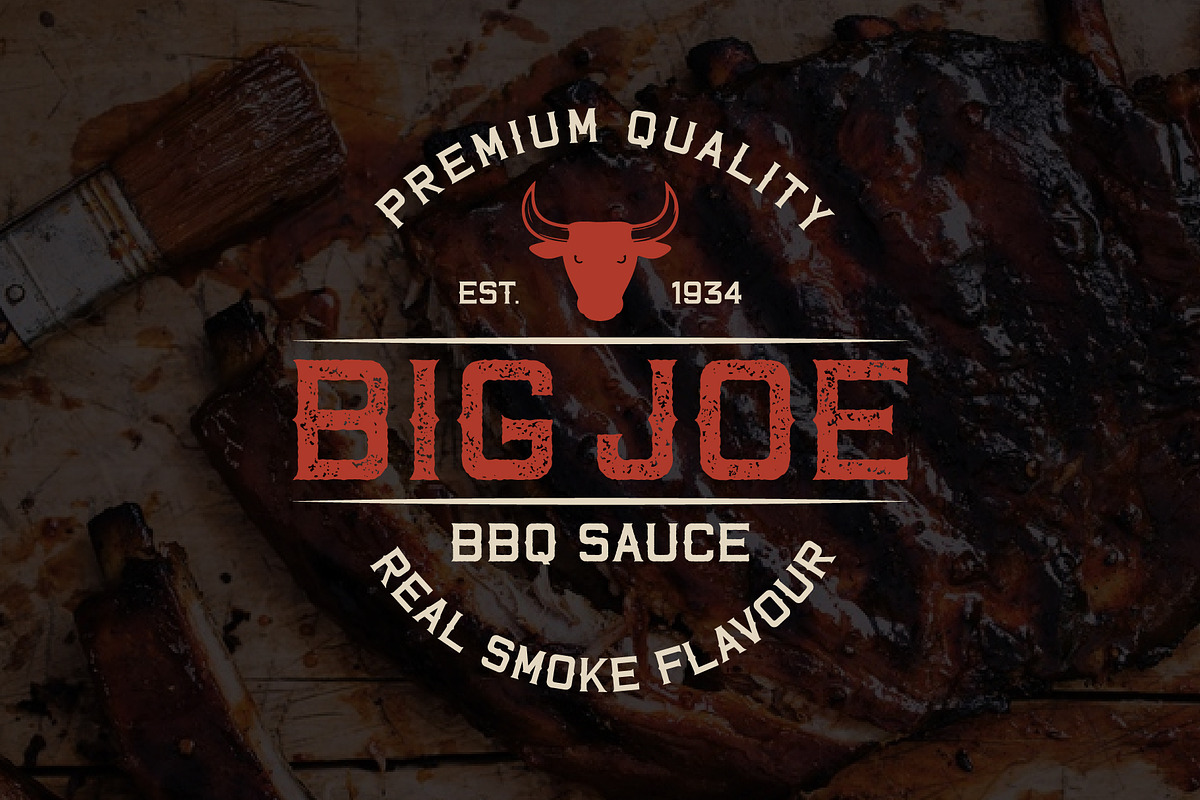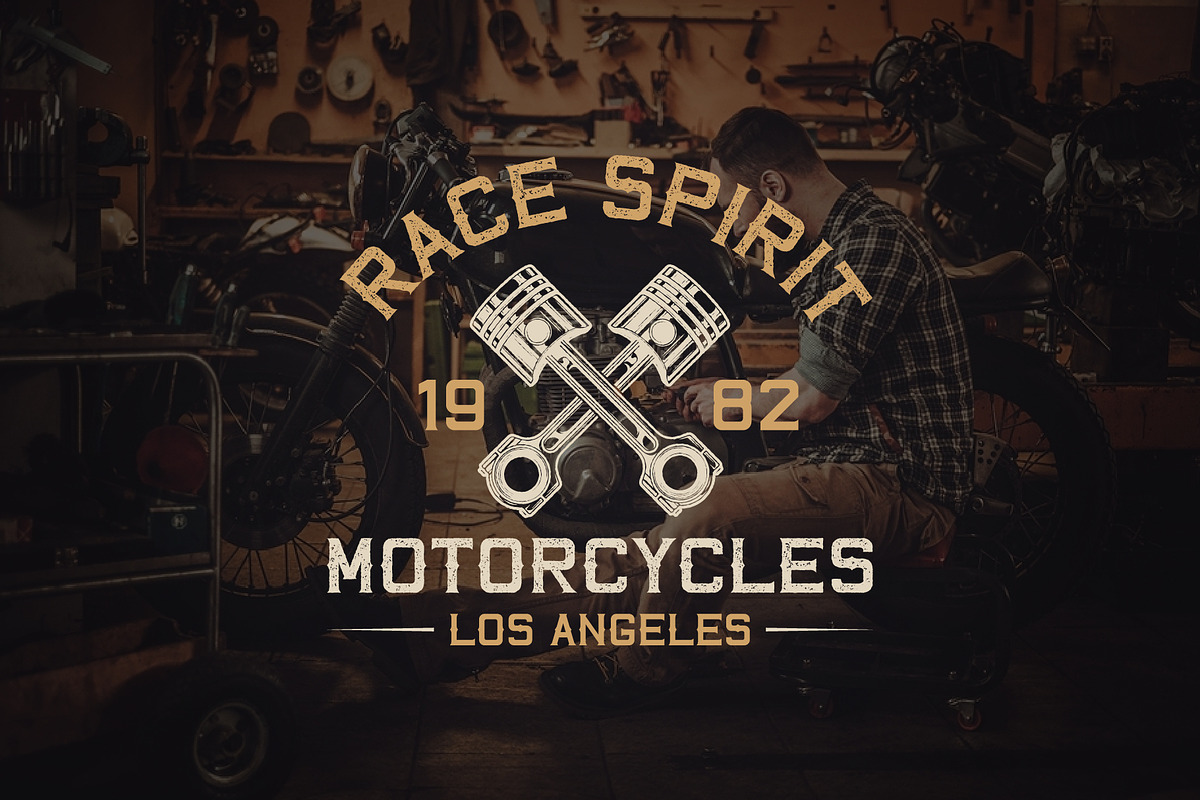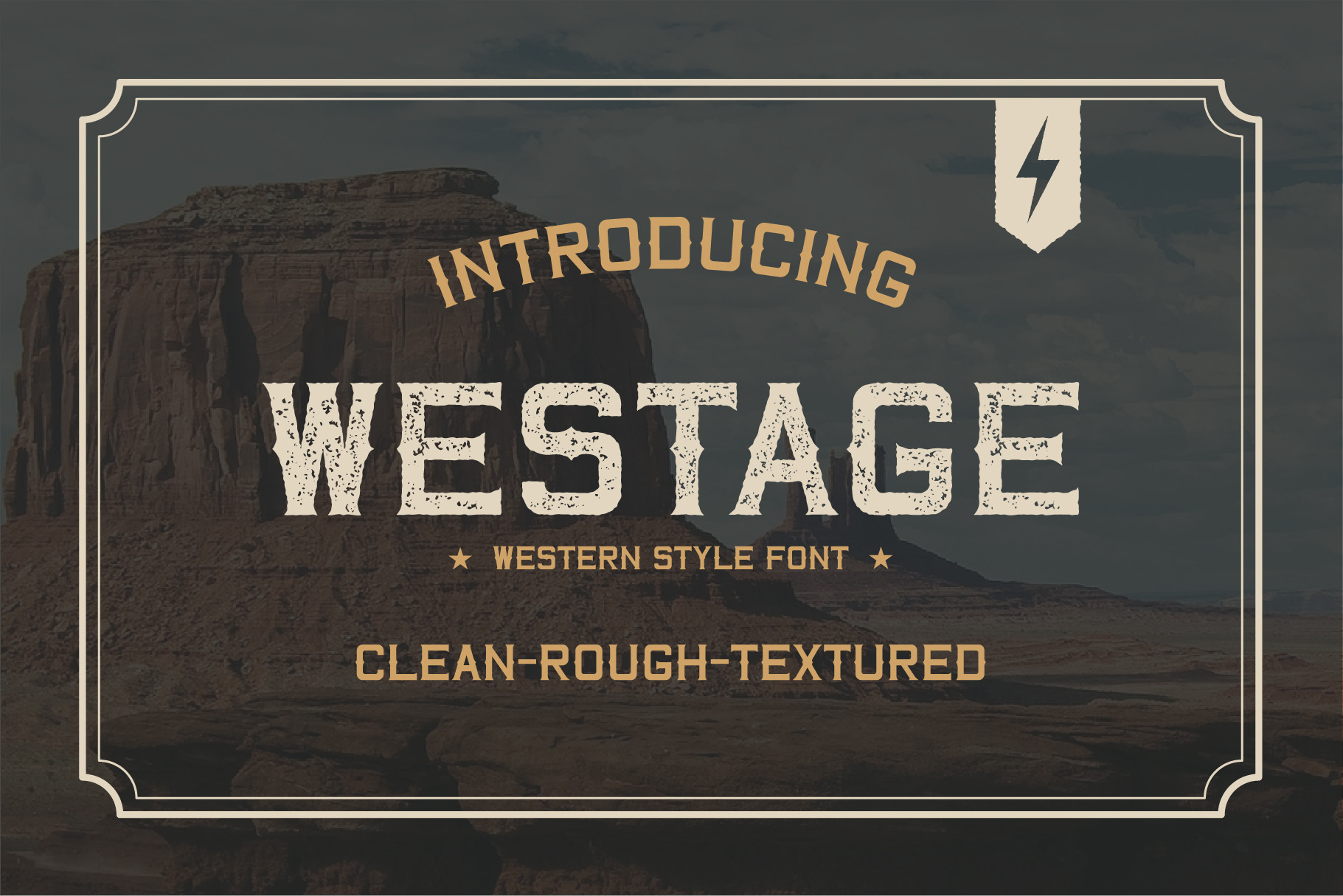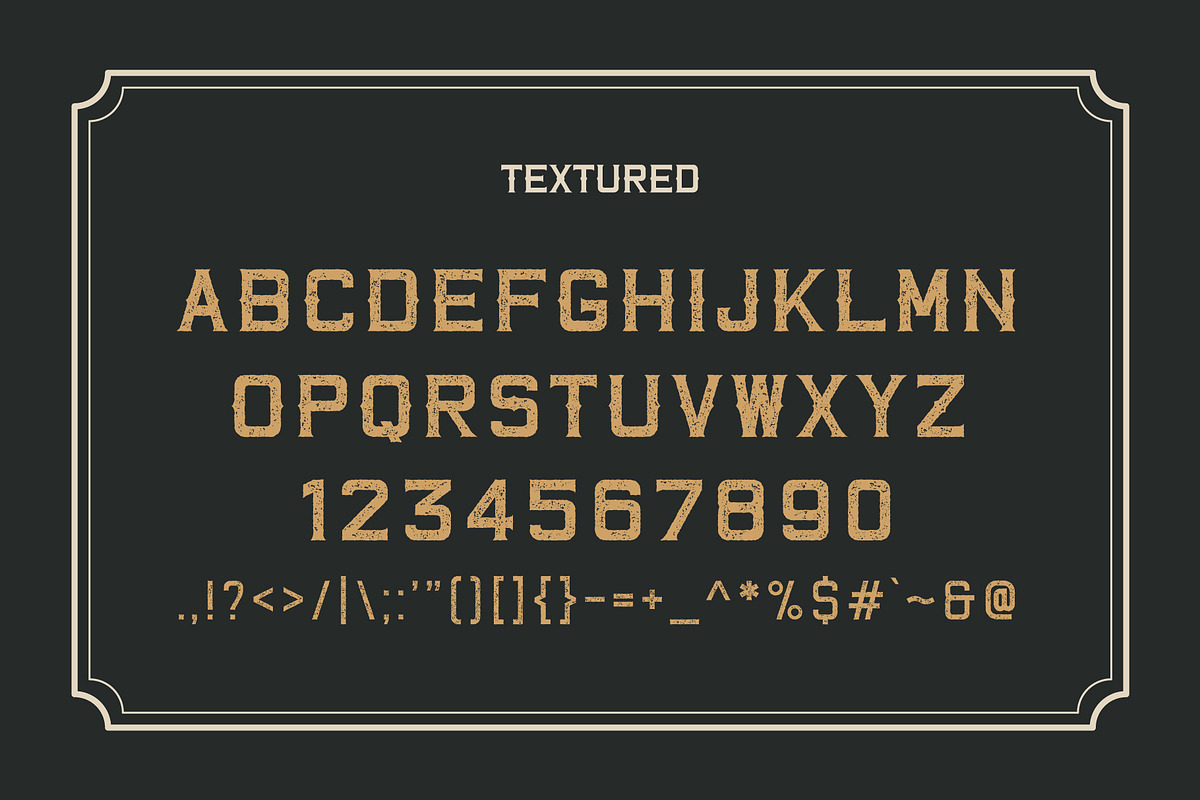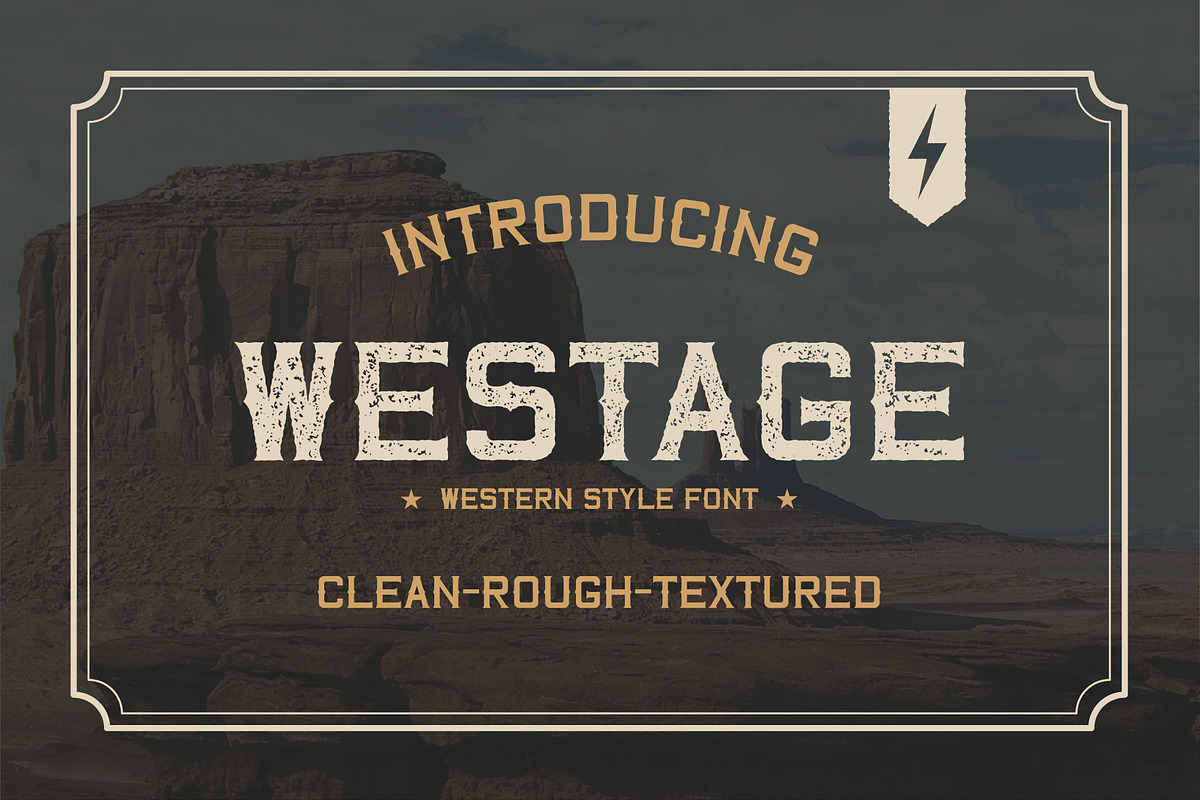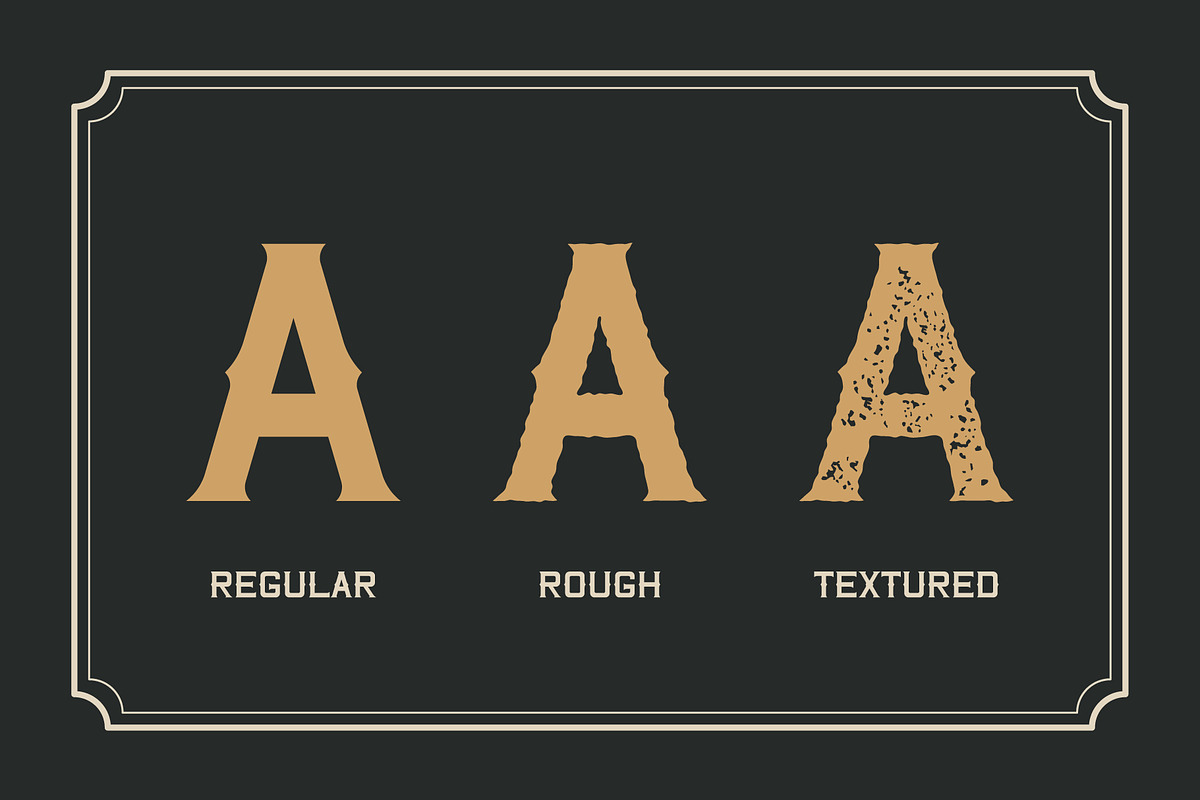
Introducing Westage Serif Display Font!
Westage is a vintage western font including three different styles that you can mix up to create amazing label design, t-shirt design, logos, badges, posters and many more!
- Uppercase, Numbers and Punctuation Included
- Regular, Rough and Textured Styles